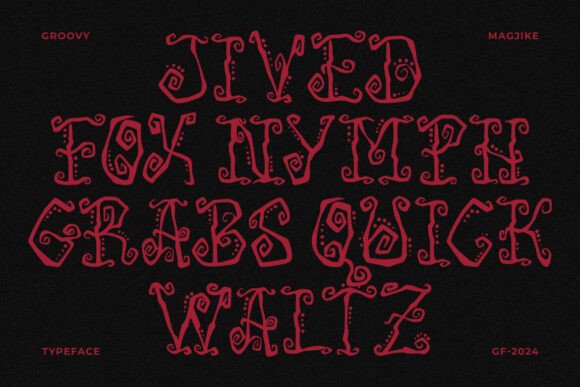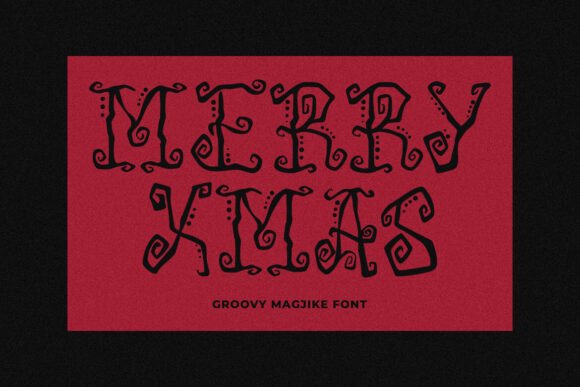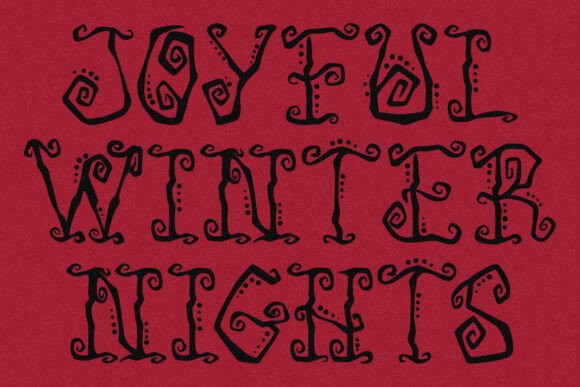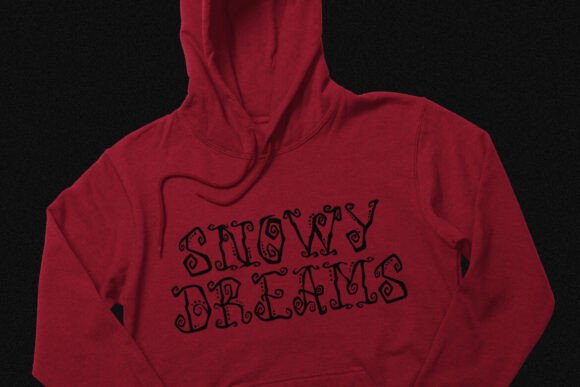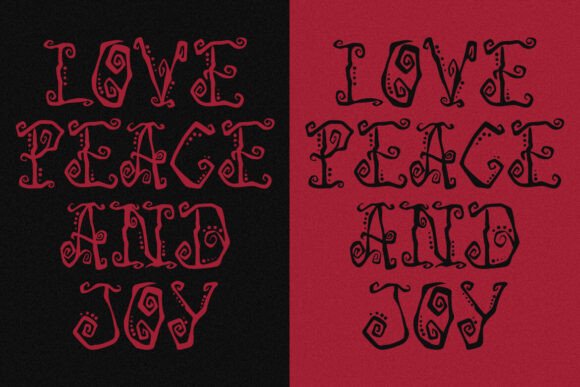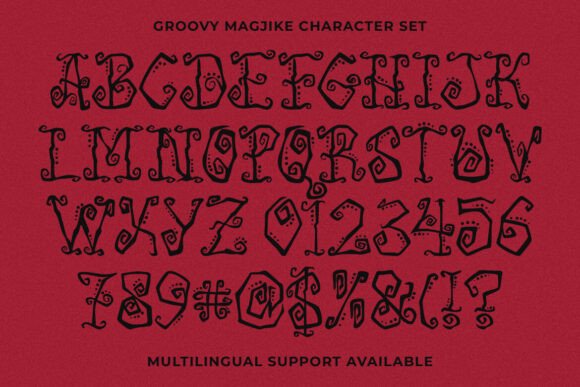
Introducing Groovy Magjike Font: Add a Touch of Elegance and Whimsy to Your Designs
Are you looking for a font that can add a dash of elegance and playfulness to your designs? Look no further than the Groovy Magjike Font! This whimsical swirly display font is perfect for designers and crafters who want to create unique and eye-catching projects. With its intricate swirls and additional dot textures on the letters, Groovy Magjike exudes a charming and festive vibe that’s sure to spark joy and creativity in your holiday creations.
The Perfect Font for Christmas-Themed Designs
Groovy Magjike is specifically designed to bring a magical and playful element to your Christmas-themed designs. Whether you’re creating holiday cards, gift tags, or social media graphics, this font is sure to add a touch of elegance and sophistication. The intricate swirls and dot textures on the letters give the font a festive and celebratory feel that’s perfect for the holiday season.
Unique and Decorative
What sets Groovy Magjike apart from other fonts is its unique and decorative style. The font features intricate swirls and additional dot textures on the letters, which give it a charming and whimsical feel. This font is perfect for designers and crafters who want to add a personal touch to their projects and make them stand out from the crowd.
Groovy Magjike is a versatile font that’s perfect for both designers and crafters. Whether you’re creating digital designs or handmade crafts, this font can be used to add a touch of elegance and sophistication to your projects. Designers can use Groovy Magjike to create stunning holiday graphics, while crafters can use it to add a personal touch to their handmade cards and gifts.
Key Features of Groovy Magjike Font
- Whimsical swirly display font
- Intricate swirls and additional dot textures on the letters
- Charming and festive vibe
- Perfect for Christmas-themed designs
- Unique and decorative style
- Versatile and suitable for both digital and handmade projects
Tips for Using Groovy Magjike Font
- Use Groovy Magjike as a headline font to add a touch of elegance and sophistication to your designs.
- Pair Groovy Magjike with a simple font to create a striking contrast.
- Use Groovy Magjike to create eye-catching holiday graphics, such as social media posts and gift tags.
Groovy Magjike font is a unique and decorative font that’s perfect for designers and crafters who want to add a touch of elegance and whimsy to their designs. With its intricate swirls and additional dot textures on the letters, this font exudes a charming and festive vibe that’s sure to spark joy and creativity in your holiday creations. Whether you’re creating Christmas-themed designs or just want to add a personal touch to your projects, Groovy Magjike is the perfect font for you.